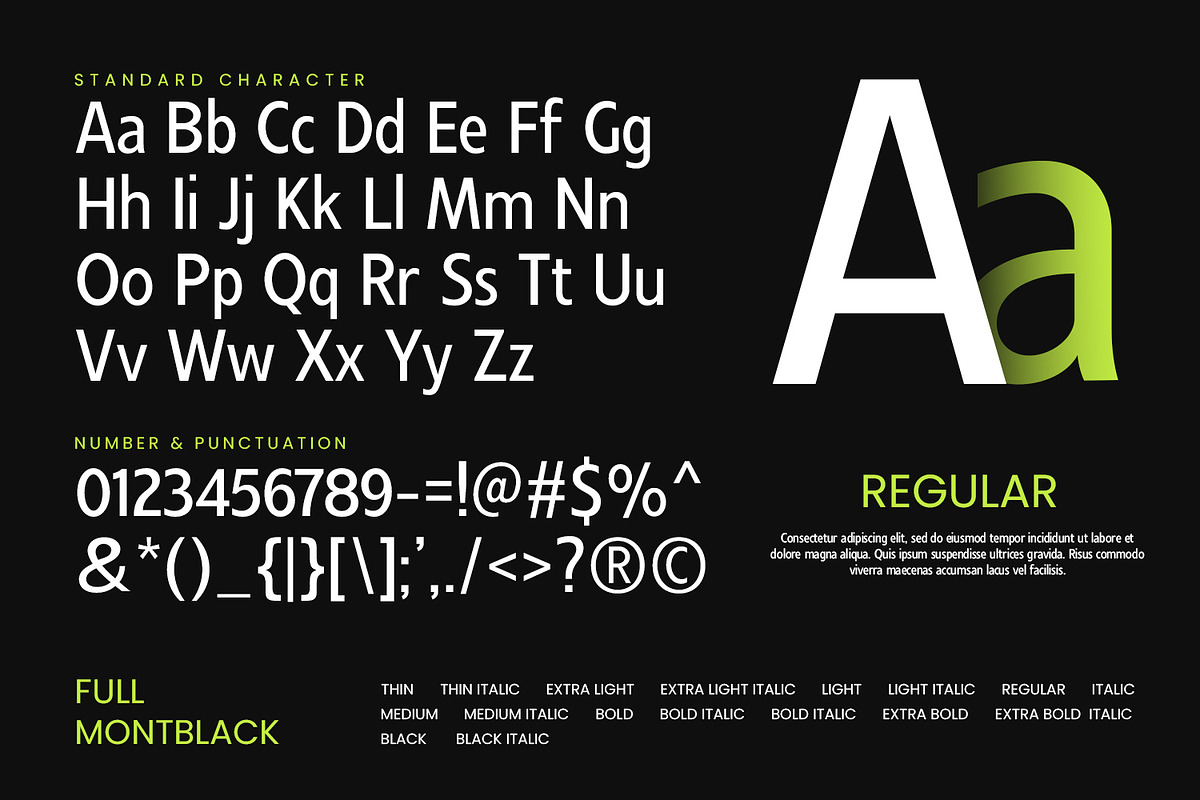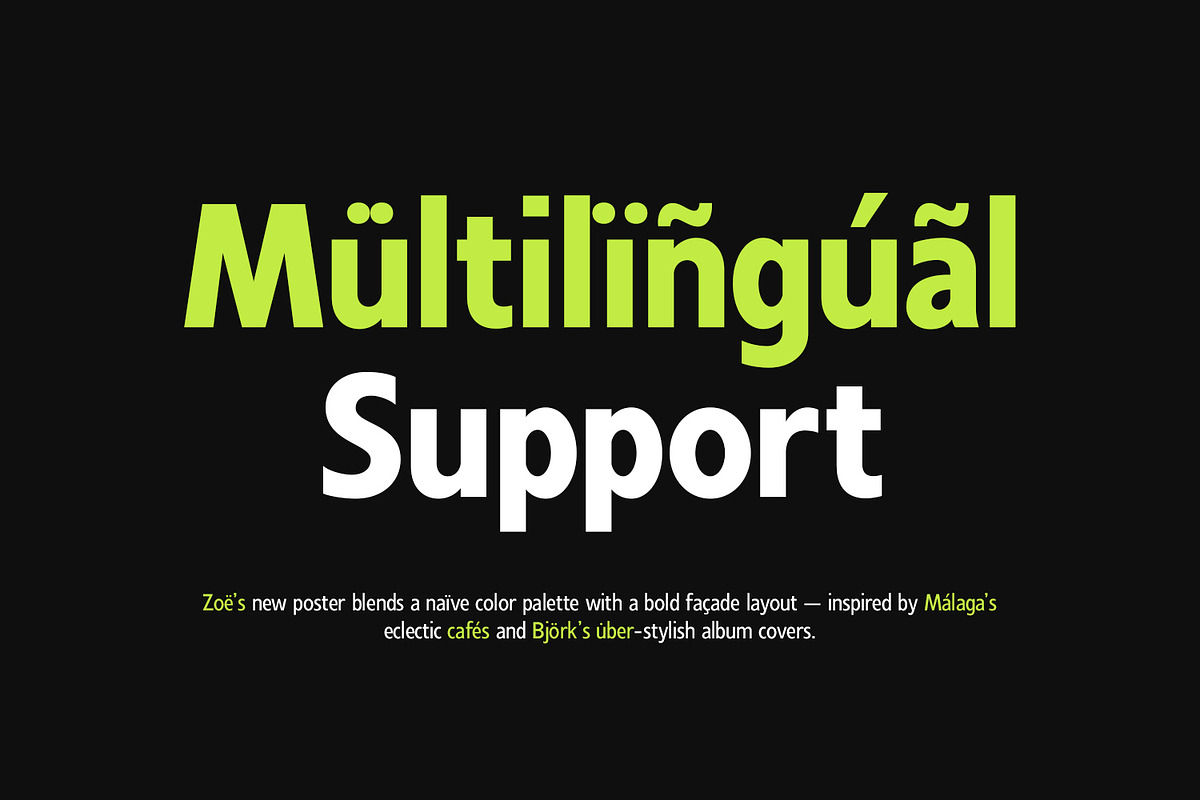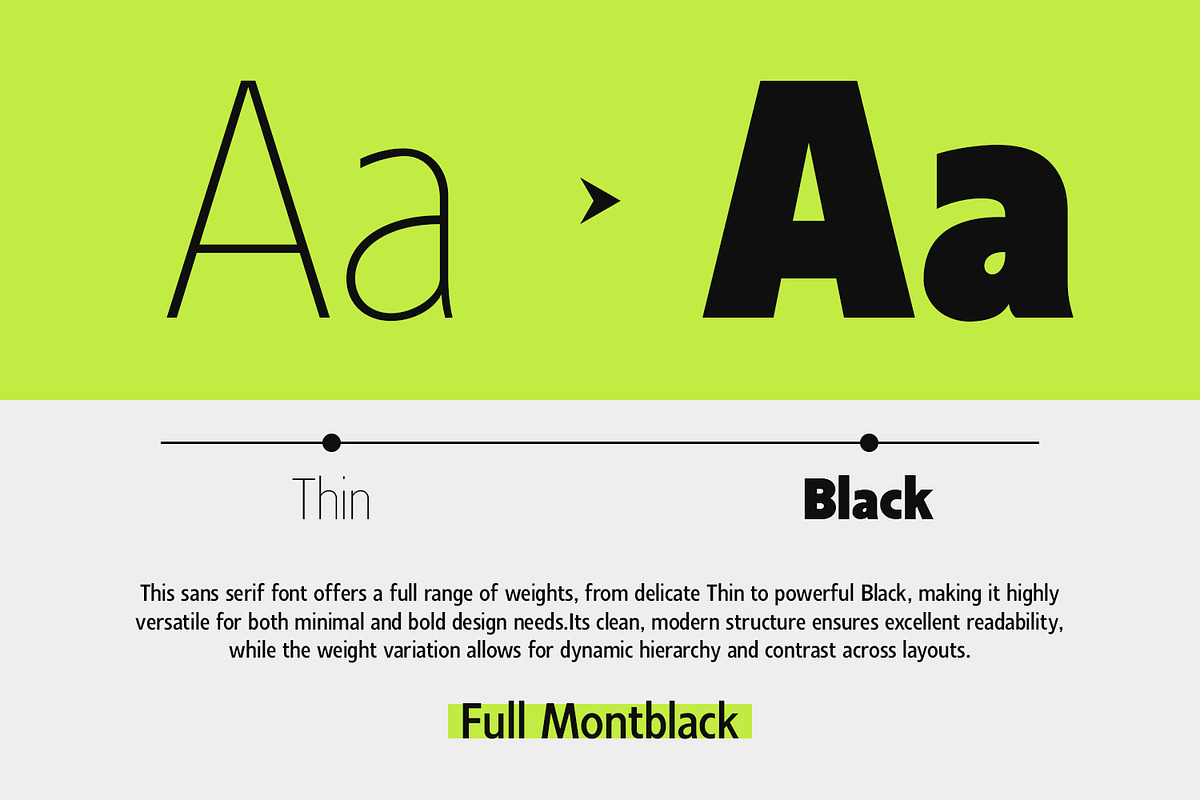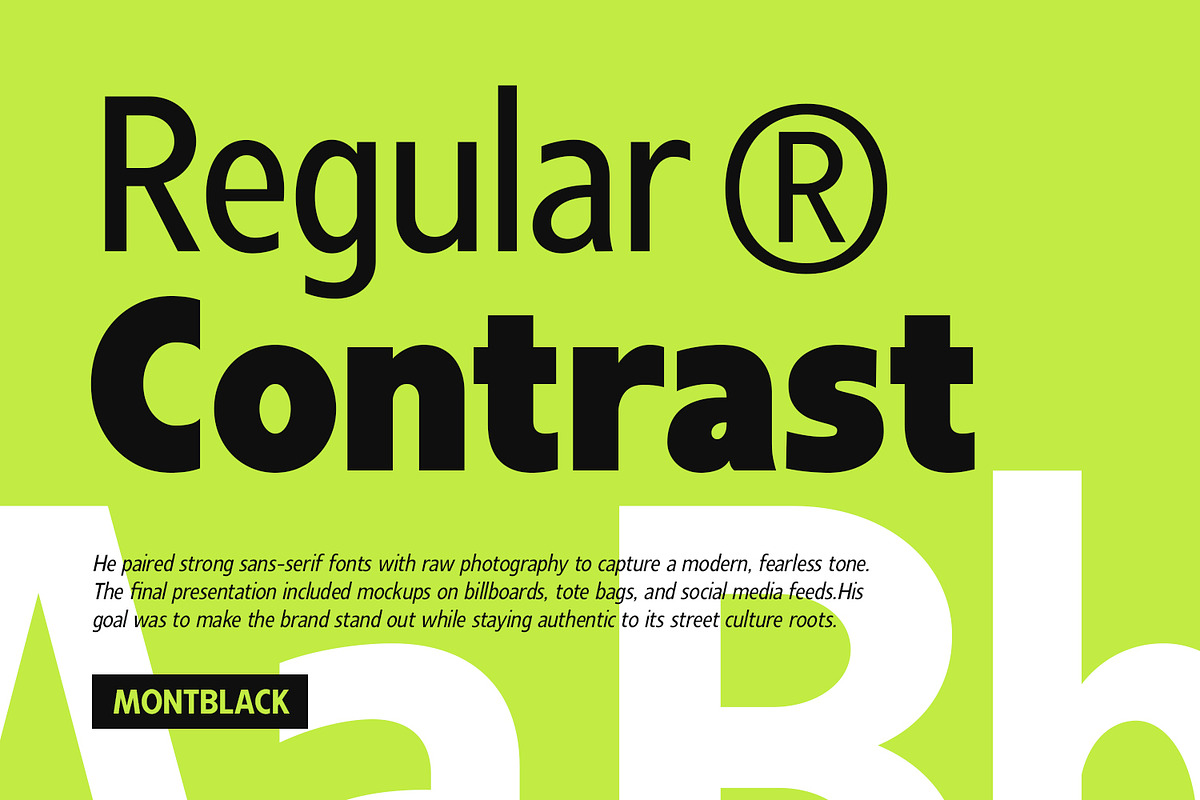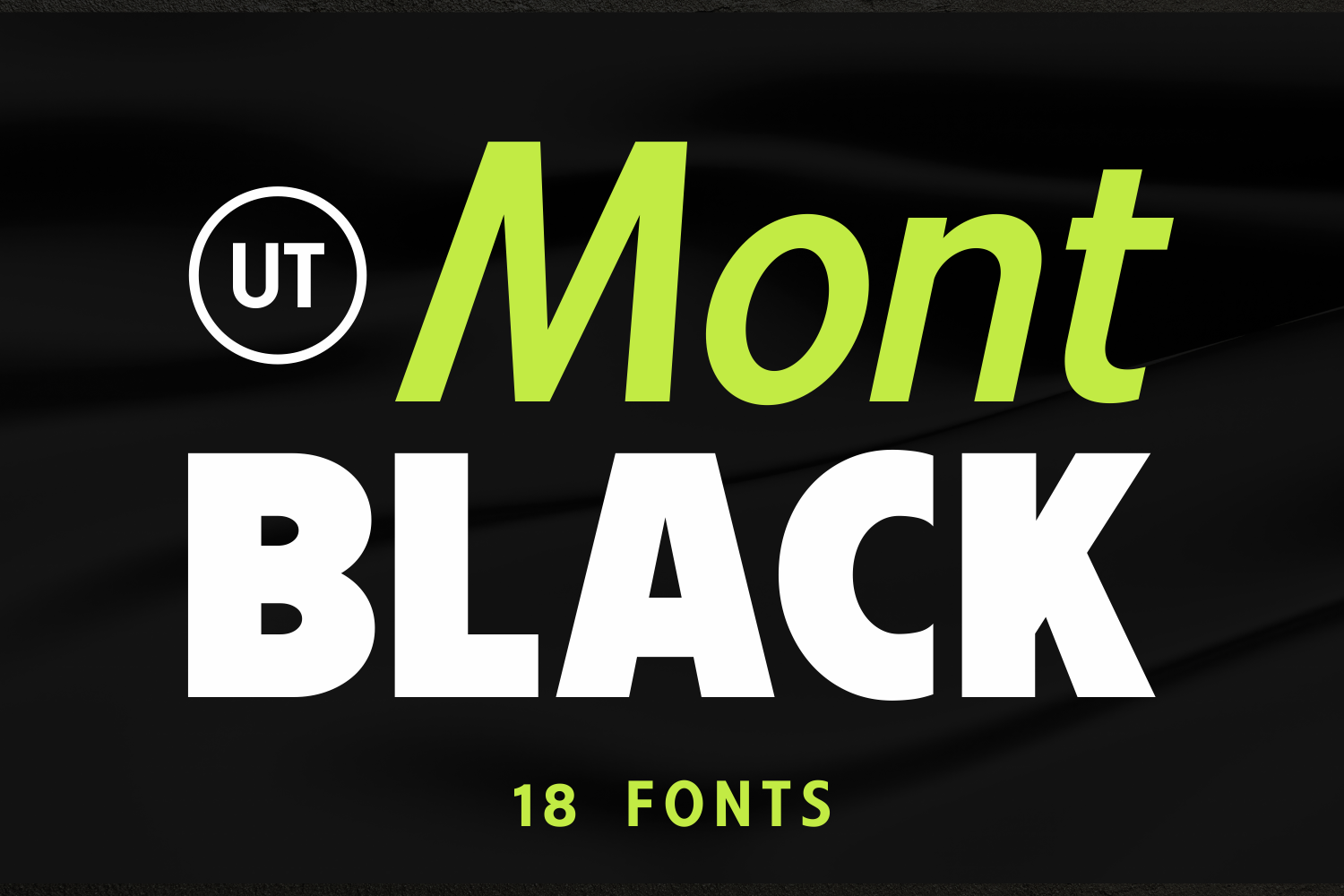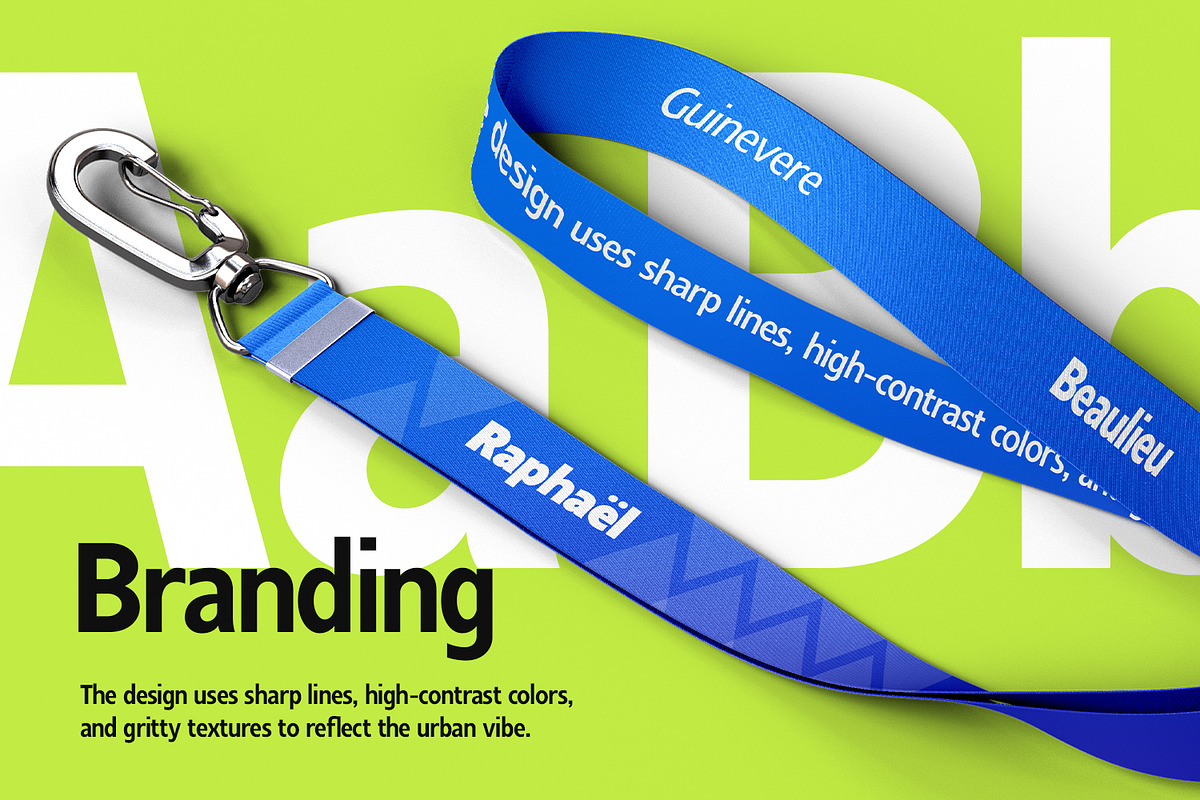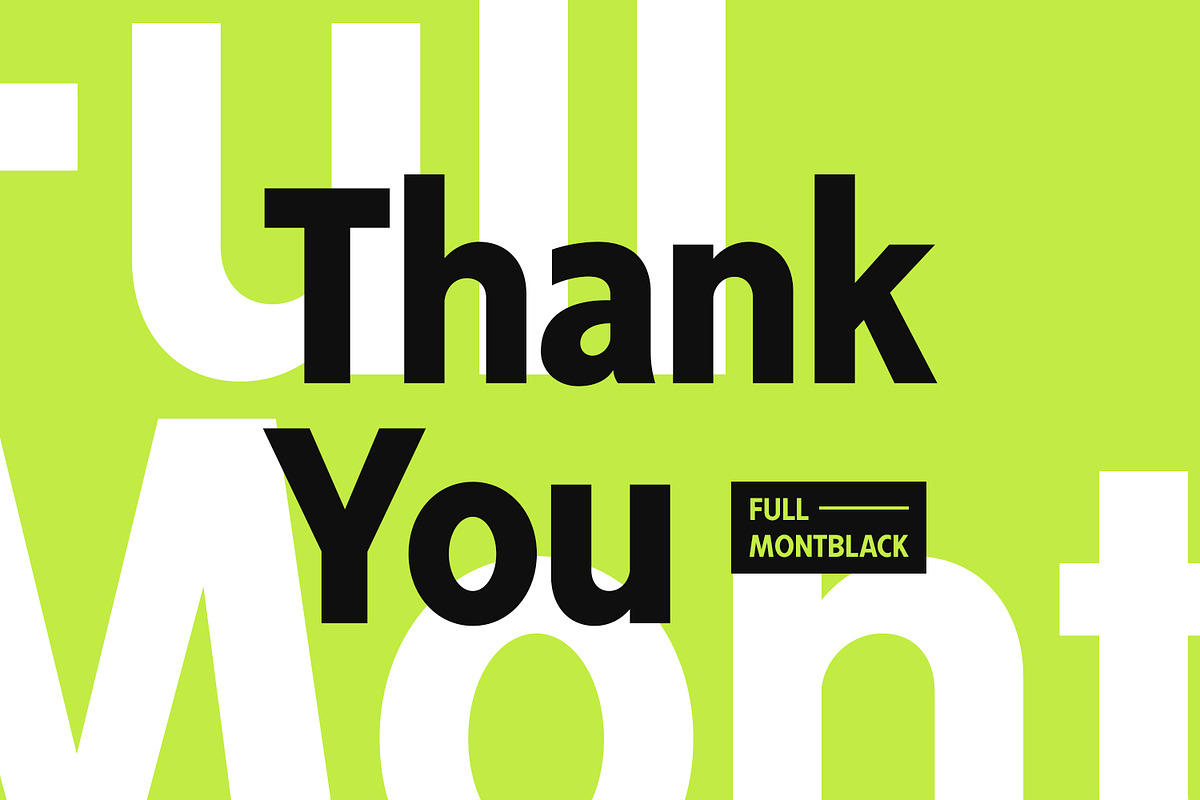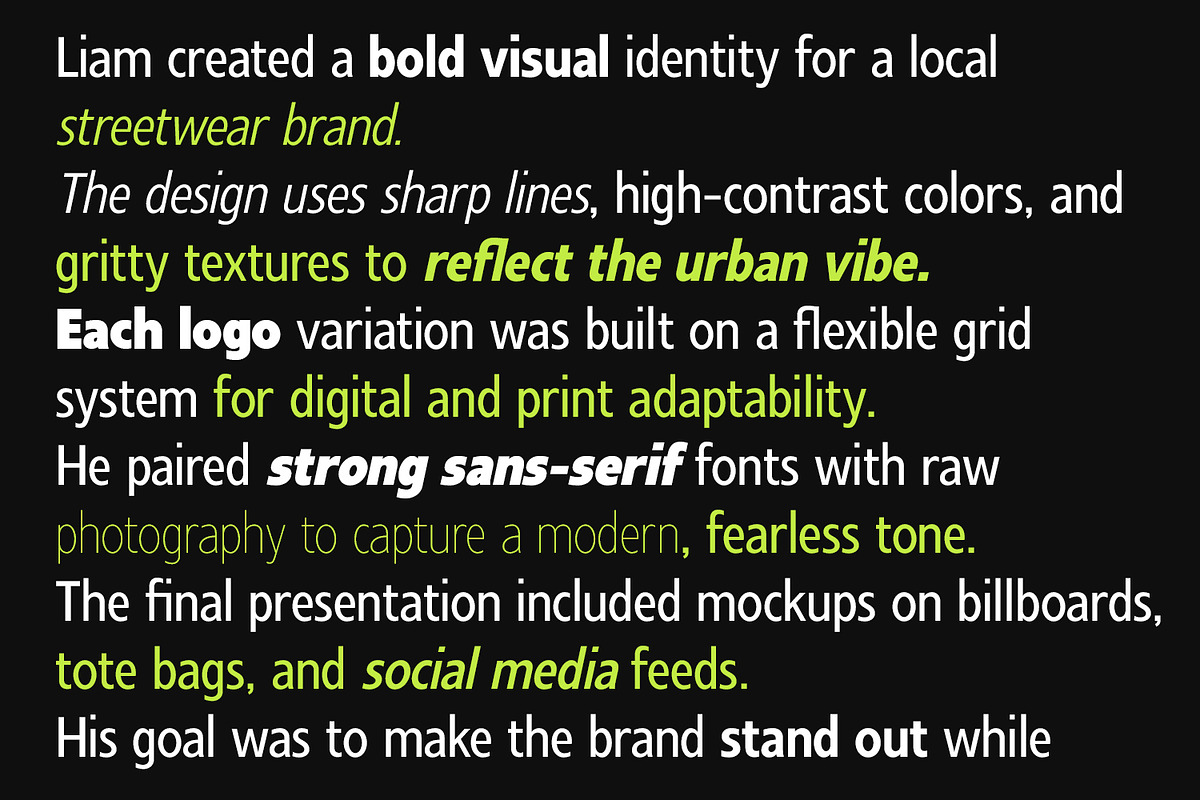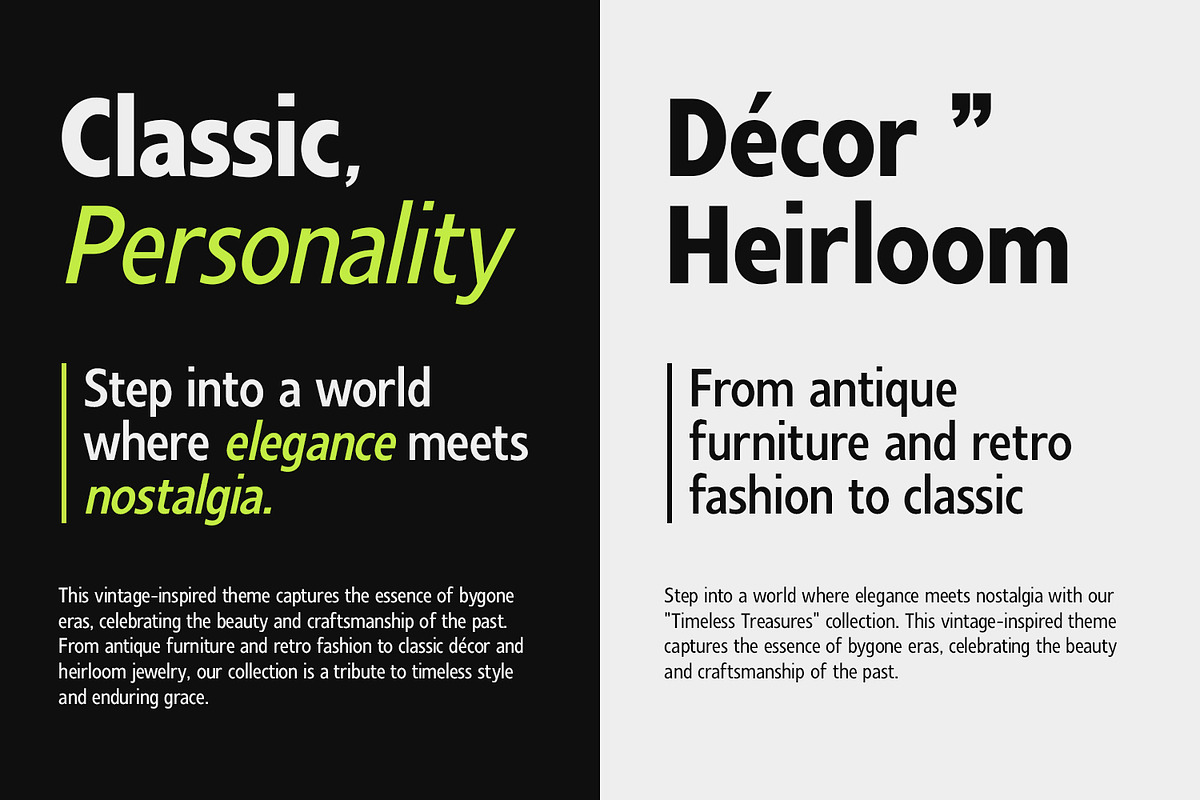
Montblack - Sans Serif Font Family
Montblack is a modern sans-serif display font family made for those who want their designs to stand out. Inspired by classic neo-grotesk typefaces of the 20th century, Montblack brings a fresh geometric twist to the table with sharp edges, minimal stroke contrast, and a tall x-height that gives it a clean, confident look.
This versatile font family comes with 9 weights and 18 styles (including obliques), giving you the flexibility to build cohesive and dynamic visual identities. Whether you're designing a striking logo or laying out a stylish magazine cover, Montblack gives you the creative range to match your brand’s tone and presence.
Montblack really shines in applications like branding, headlines, logos, signage, packaging, advertisements, fashion, web, and editorial design. It’s crafted with precision kerning and spacing, making it ideal for impactful use in headers and titles. While it's not made for body text, it more than makes up for it with its strong personality and visual clarity.
This font isn’t just a tool – it’s a statement. With its sharp, sleek geometry and well-balanced proportions, Montblack helps communicate boldness, elegance, and professionalism. It’s perfect for agencies, startups, creatives, and brands that want to make a lasting impression.